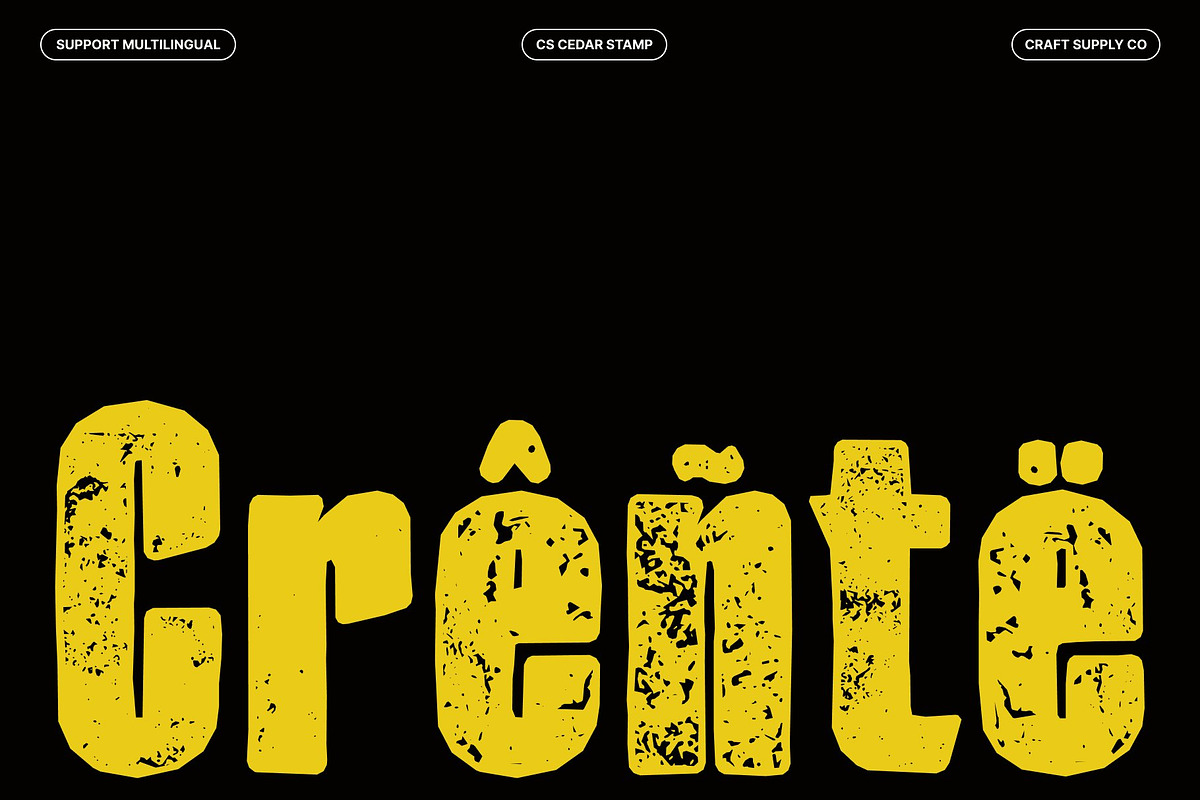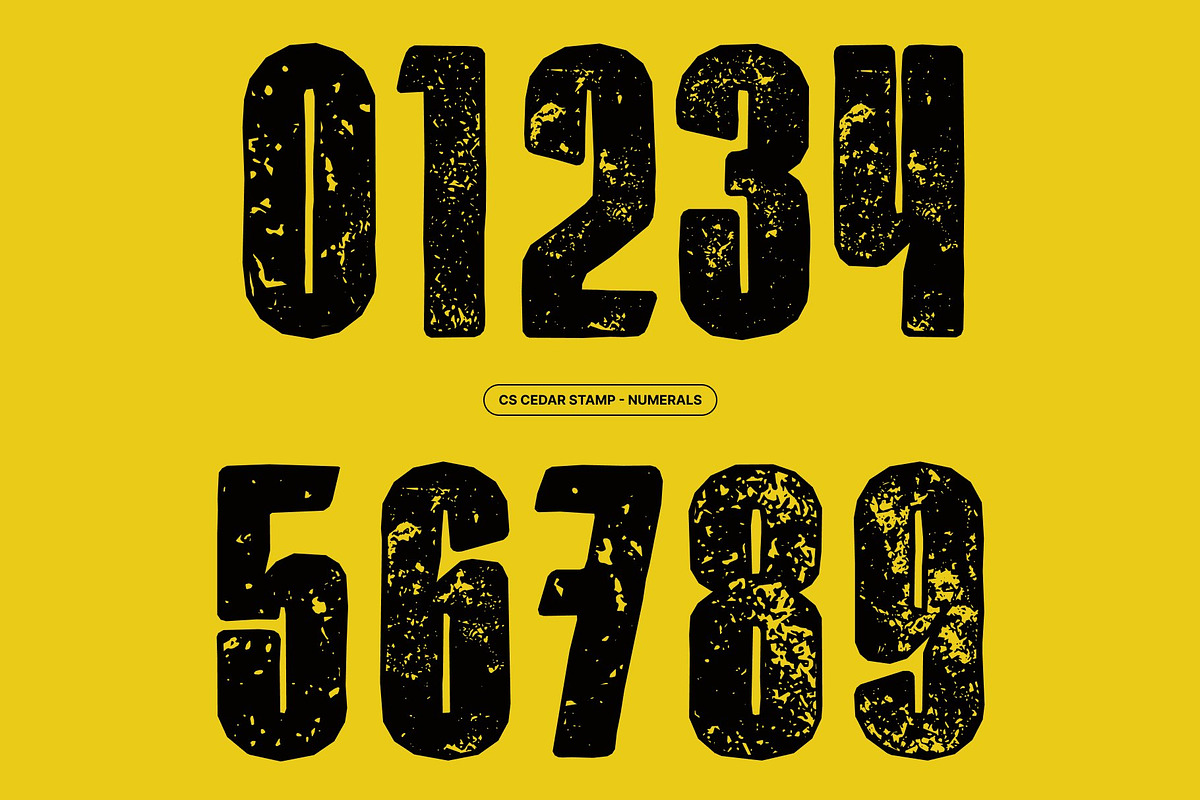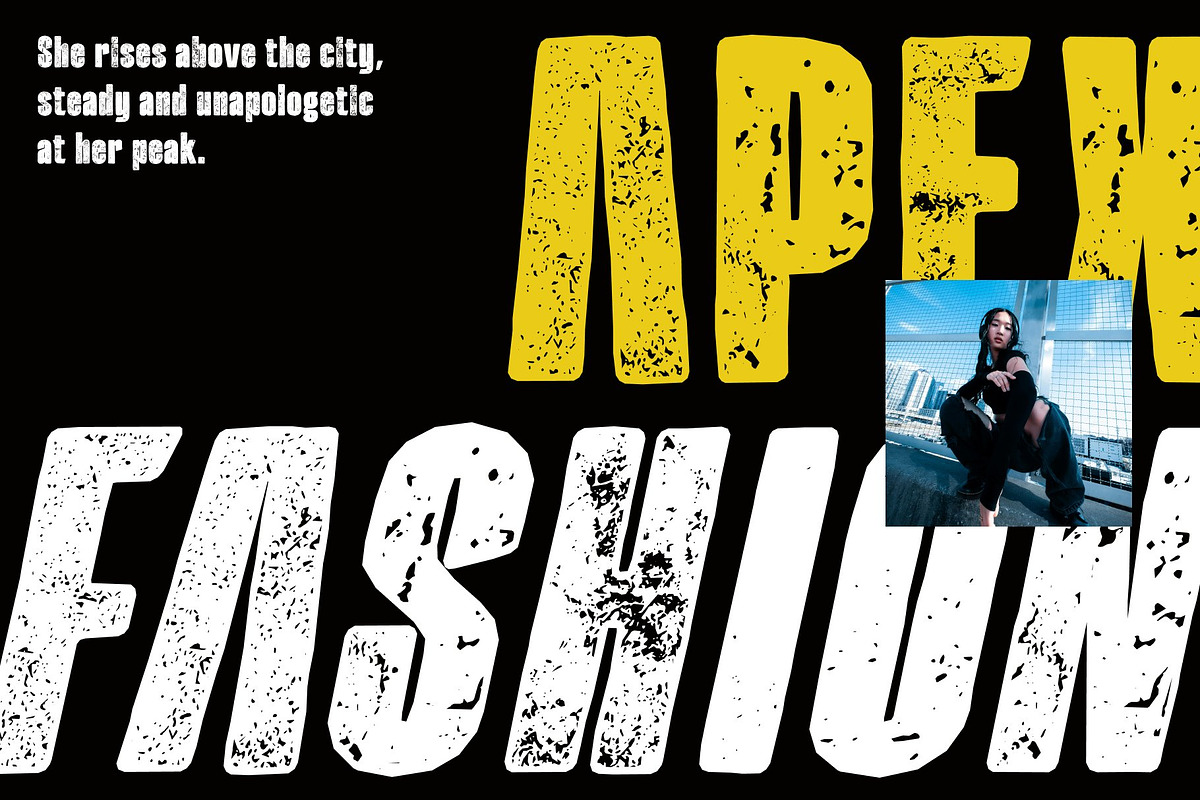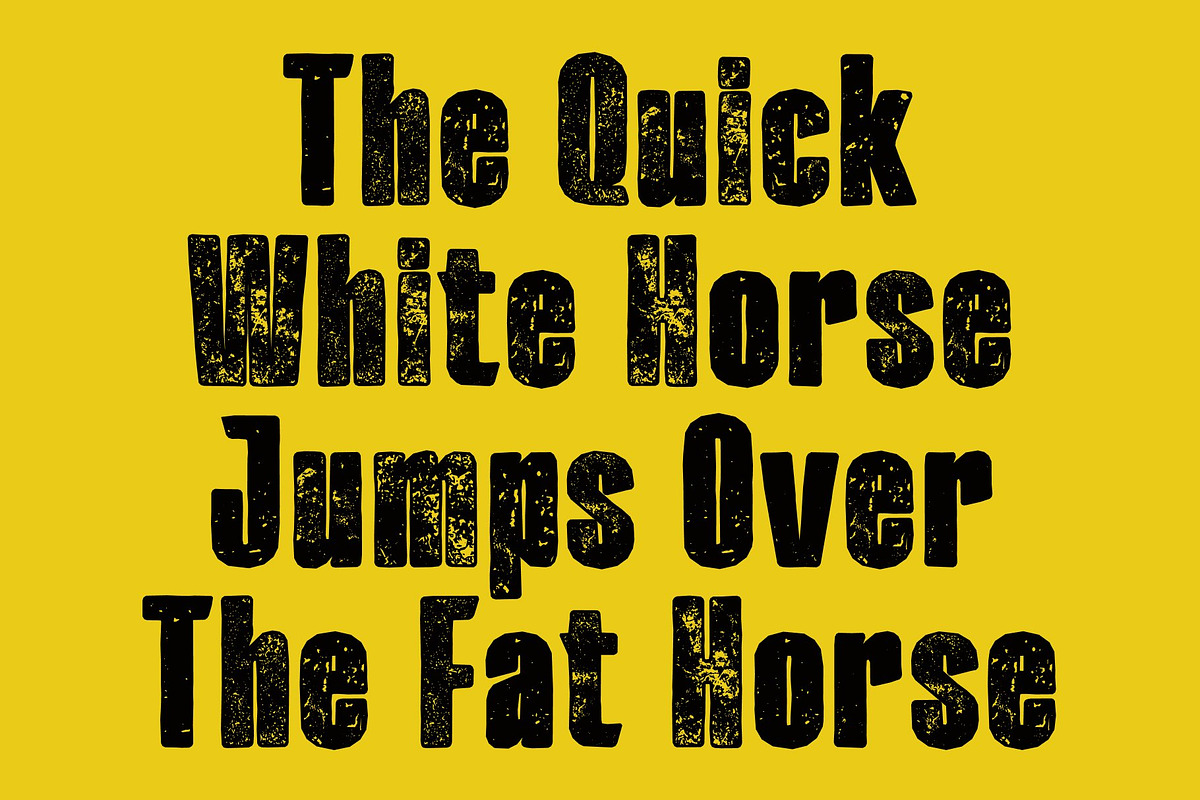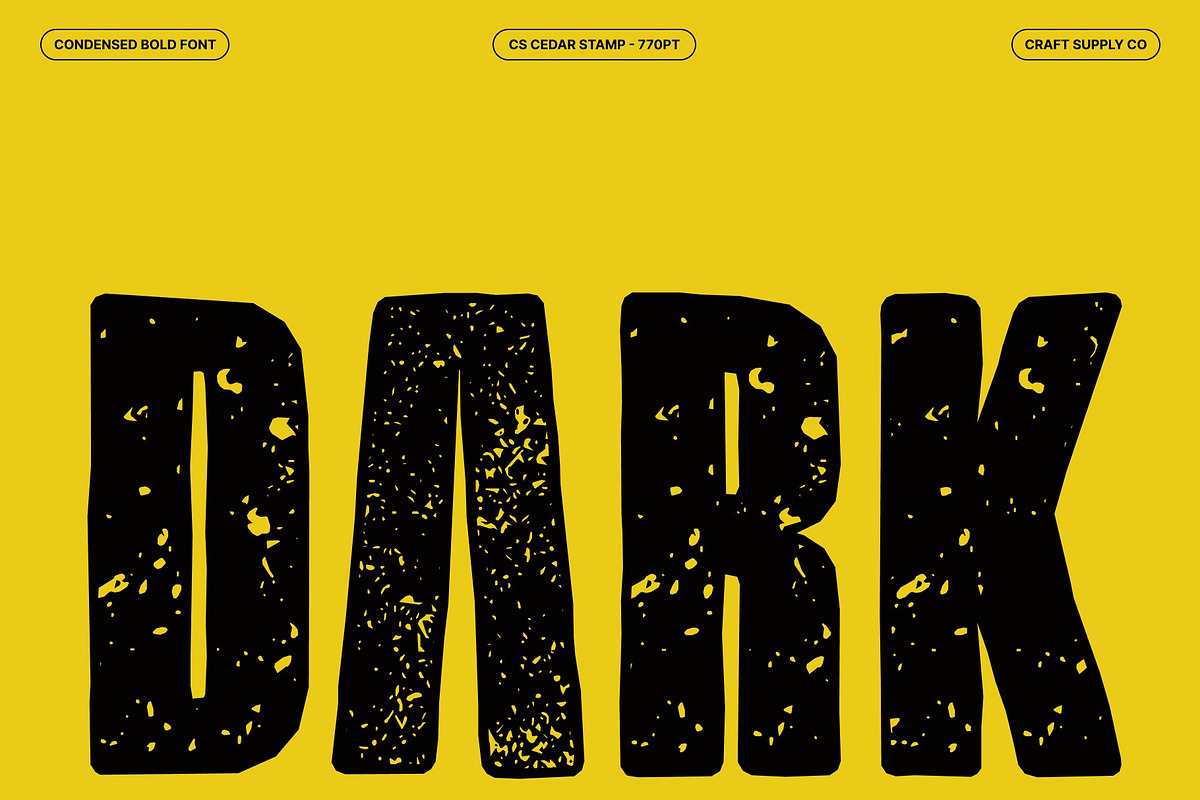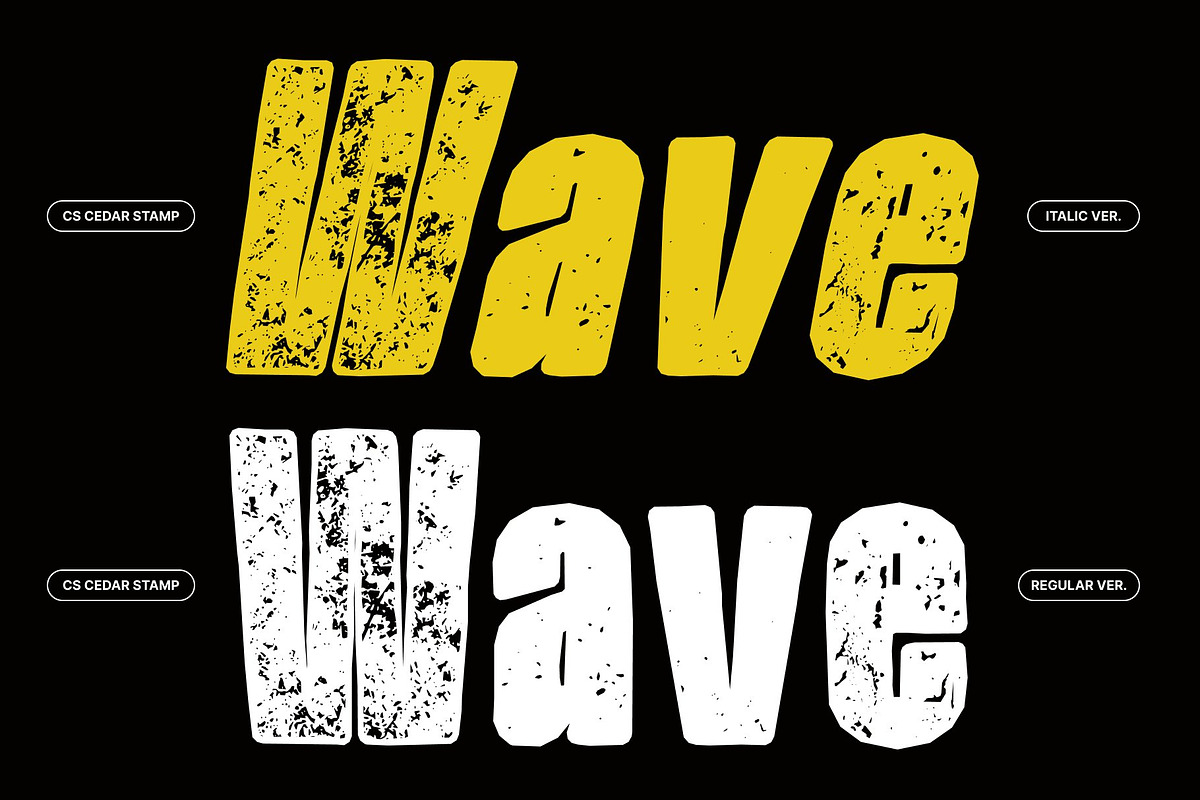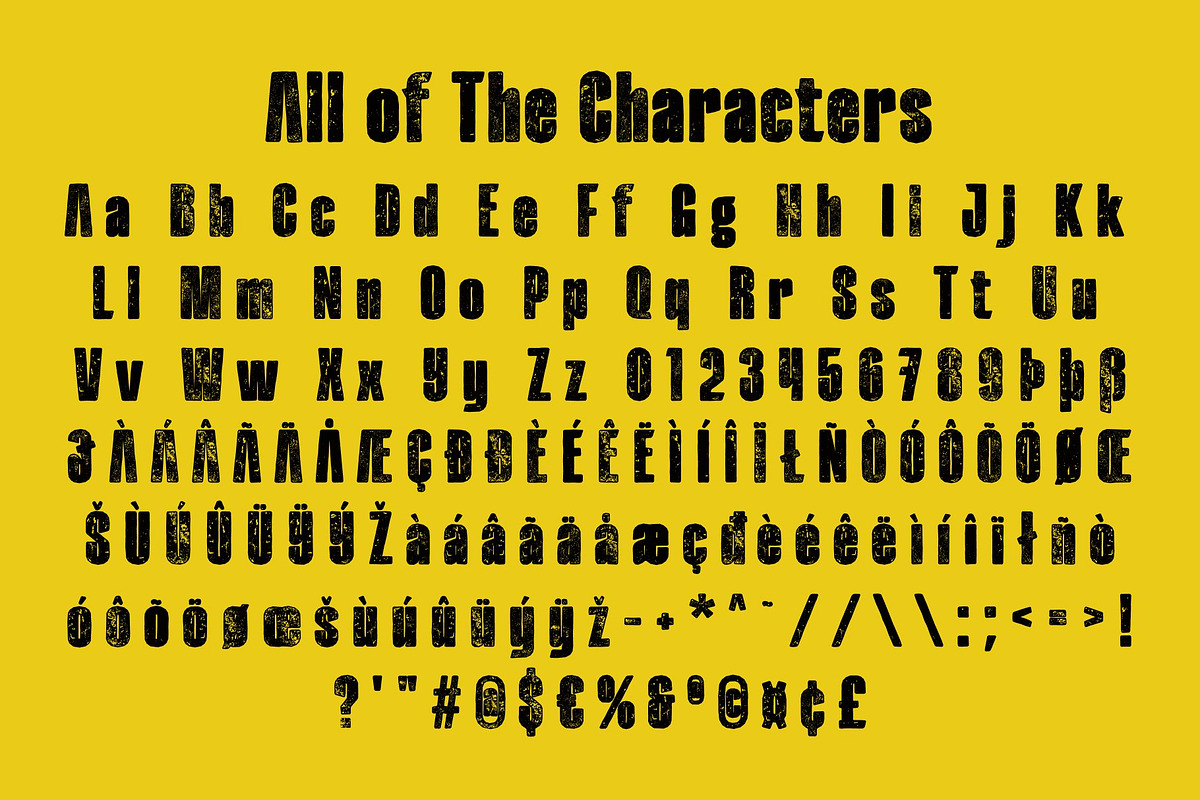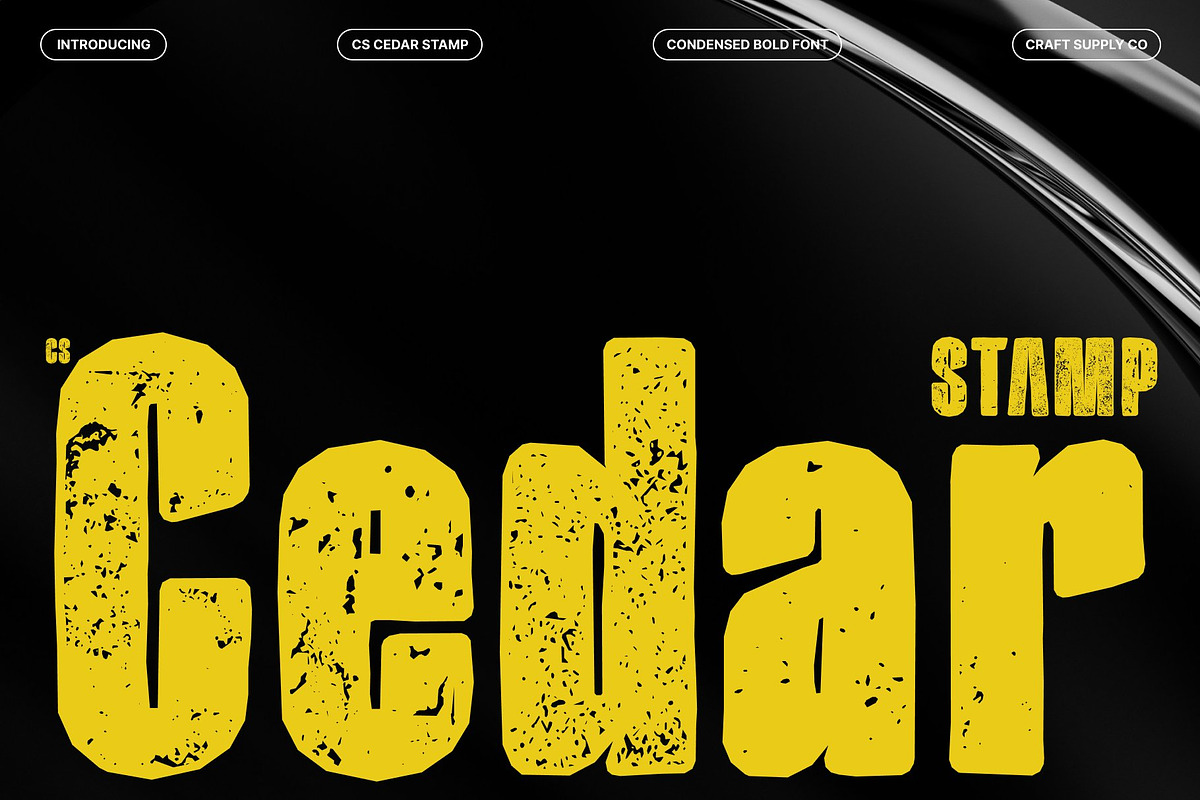
CS Cedar Stamp
CS Cedar Stamp – Bold Precision with Inktrap Clarity
Modern Sans Serif with Inktrap Innovation This is a modern sans-serif font that combines bold, powerful letterforms with functional inktrap features. These subtle cuts and openings at stroke intersections enhance readability, especially at smaller sizes, while adding a distinctive technical character. Enhanced with a stamp effect, the font gains a textured, slightly distressed finish that introduces a vintage, tactile quality.
Strong Forms with Textured Detail The solid geometry and sharp edges create a confident and contemporary look. The inktrap design not only improves legibility but also adds visual interest, giving the font a refined, engineered feel. The stamp texture brings in soft ink variations and worn edges, balancing precision with an organic, printed aesthetic.
Clarity Meets Bold Visual Impact This font is designed to perform across various sizes and mediums. Its bold weight ensures strong visibility, while the inktrap details maintain clarity in dense layouts. The textured finish enhances its personality, making it feel both modern and authentic.
Perfect for Branding, Signage, and Display Design Ideal for logos, headlines, posters, signage, and branding systems, delivers a professional and impactful typographic voice. Its fusion of inktrap precision and vintage stamp texture creates a unique style clean, strong, and visually engaging for modern design applications.